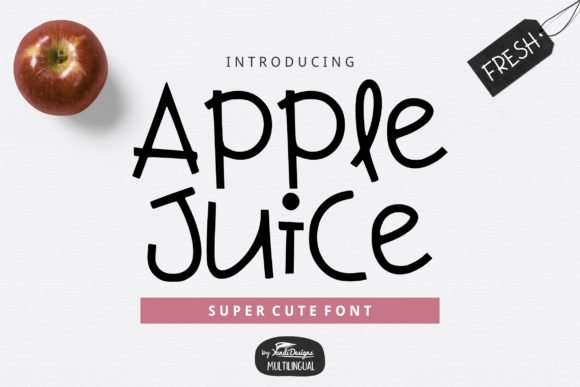
The Perfect Blend of Creativity and Design
Have you ever been brainstorming a new project, and suddenly, the perfect idea hits you? It’s that moment of clarity, where everything falls into place, and your creative juices start flowing. For designers, this moment is what drives us to push the boundaries of our craft. And, sometimes, it all starts with the right font.
Meet Apple Juice Font, a delightful sans serif font that’s as refreshing as a glass of freshly squeezed apple juice. This charming font is designed to bring a modern twist to your designs, making it perfect for a variety of projects, from digital to print. Whether you’re a seasoned designer or just starting out, Apple Juice Font is a valuable addition to your toolkit, offering endless possibilities to elevate your creative work.
Apple Juice Font Key Features
- Size: The font family includes multiple weights, from Light to Black, each with a corresponding italic version, offering a total of 24 fonts in the family.
- Resolution: Apple Juice Font is designed to be scalable and legible at various resolutions, including high-resolution displays.
- Unique Characteristics: The font features a unique, hand-drawn aesthetic with subtle imperfections, giving it a natural and organic feel.
- X-Height: The x-height of Apple Juice Font is relatively high, making it easy to read at smaller font sizes.
- Language Support: Apple Juice Font supports a wide range of languages, including Latin-based languages, Cyrillic, and Greek.
Designer Review: Apple Juice Font
Apple Juice Font is a fun and quirky sans-serif font that’s sure to catch your attention. I’ve had the chance to work with it on a few projects, and here are my thoughts.
- Unique Character: Apple Juice Font has a distinct personality that sets it apart from other sans-serif fonts. It’s perfect for brands that want to stand out and be remembered.
- Easy to Read: Despite its playful nature, Apple Juice Font is still easy to read and understand, making it a great choice for body text.
- Customization Options: The font comes with a range of weights and styles, allowing you to customize it to fit your specific design needs.
- Limited Versatility: While Apple Juice Font is great for playful and creative projects, it may not be the best choice for more formal or professional designs.
- May Not Be Suitable for Small Text: The font’s unique character and playful nature may make it difficult to read in small text sizes.
Apple Juice Font is a great choice for designers who want to add a touch of whimsy and personality to their projects. While it may not be suitable for every design need, it’s a fun and versatile font that’s sure to impress.
Getting the Most Out of Apple Juice Font
For optimal results, use the Apple Juice font in conjunction with bold or italic styles to create a visually appealing effect.
The Apple Juice font is ideal for use in:
- Playful and whimsical designs